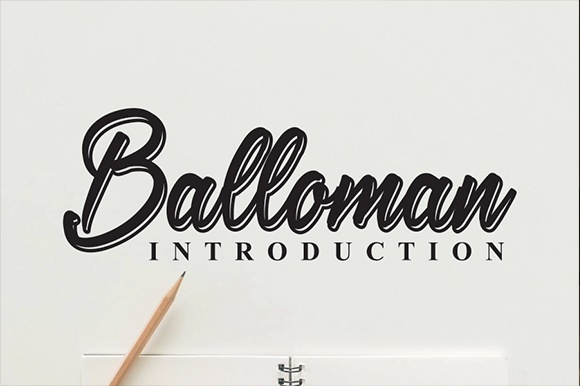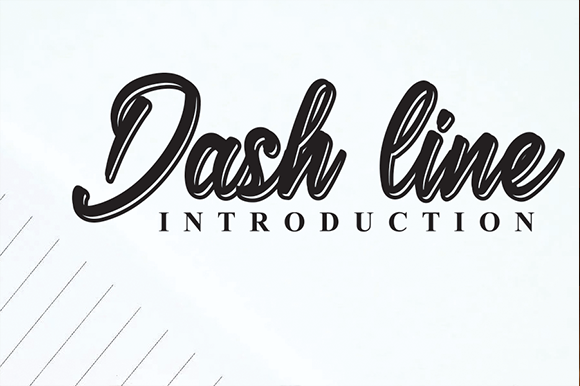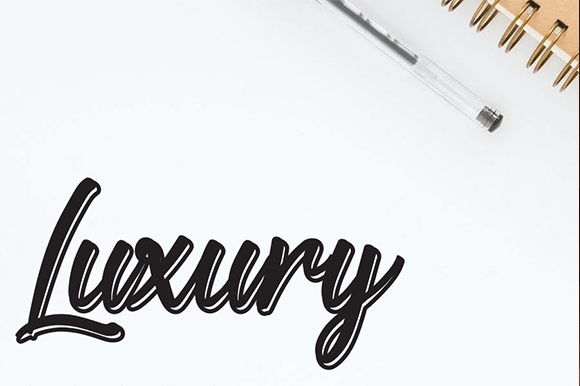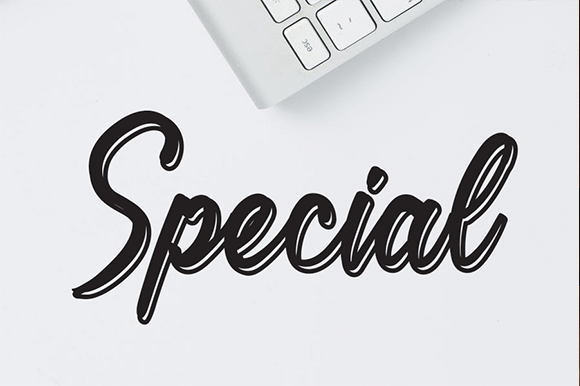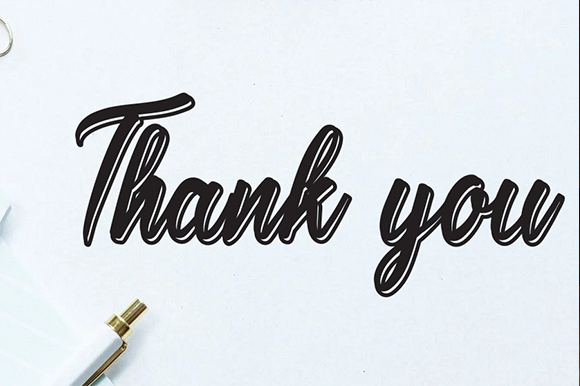
Balloman Font
About Balloman Font
Balloman is a casual, fun script font, which brings its own unique style to any design project. Get inspired by Balloman and its authentic feel, and use it to create gorgeous wedding invitations, beautiful stationary art, eye-catching social media posts, and cute greeting cards.